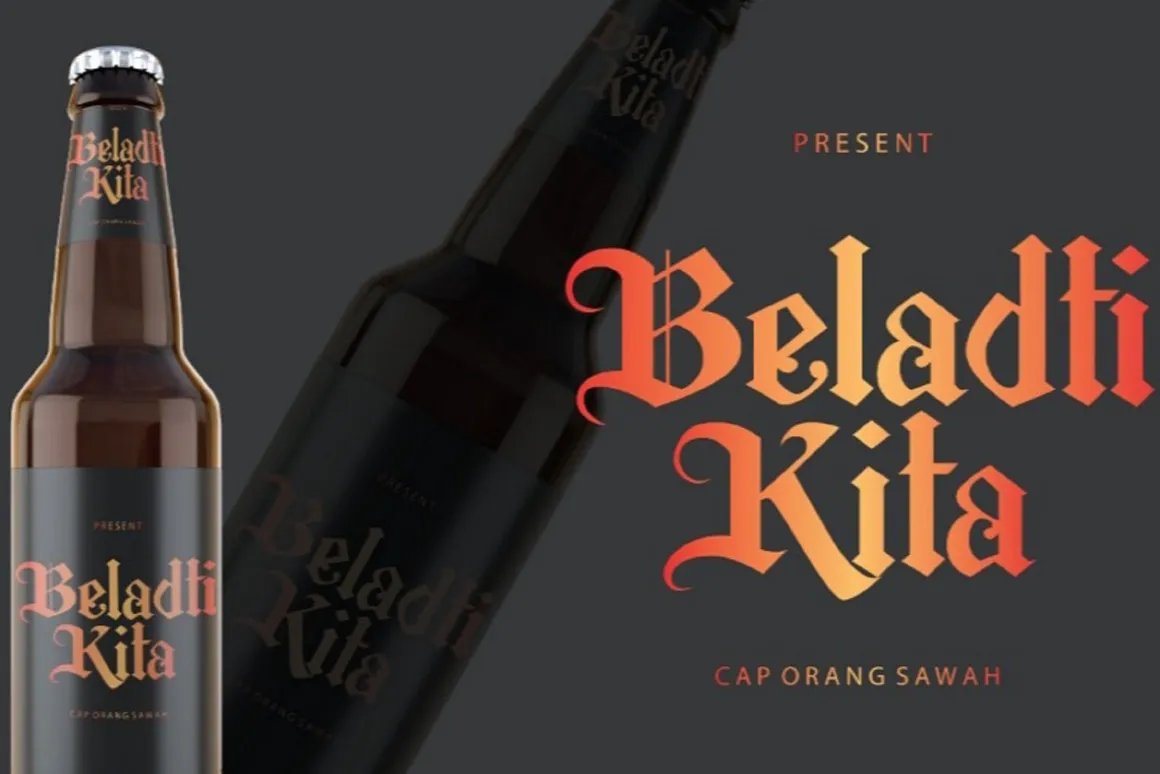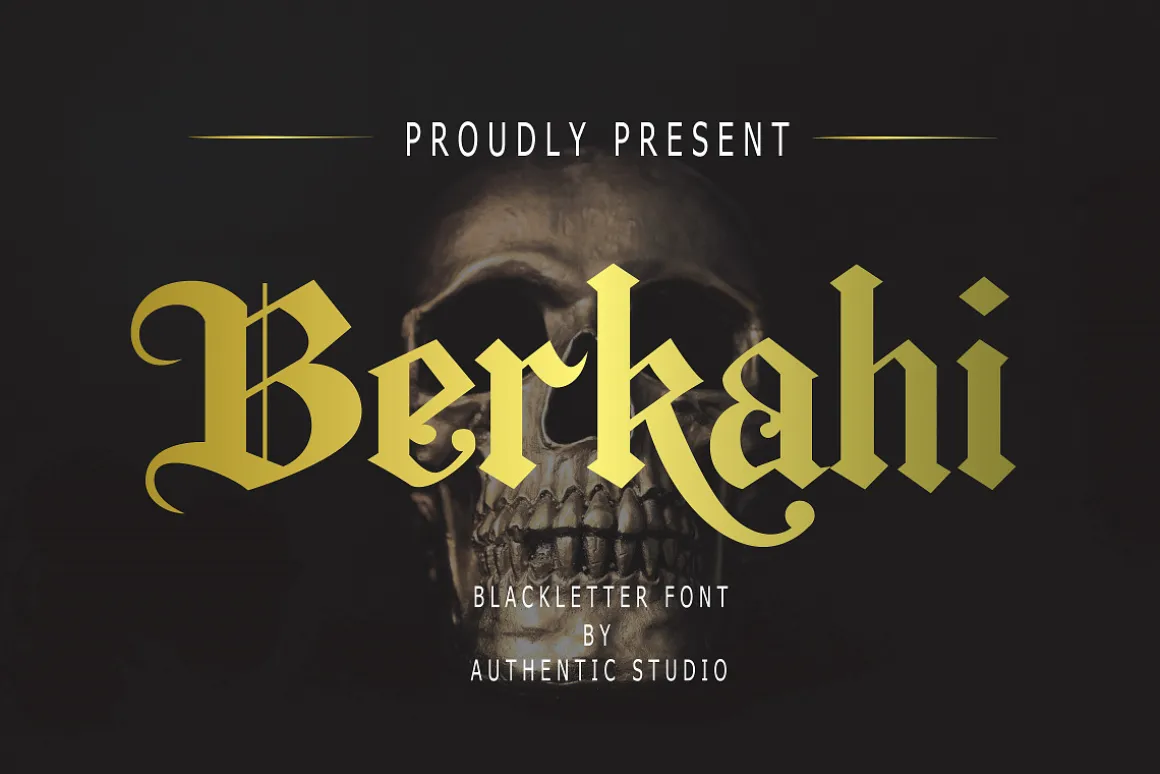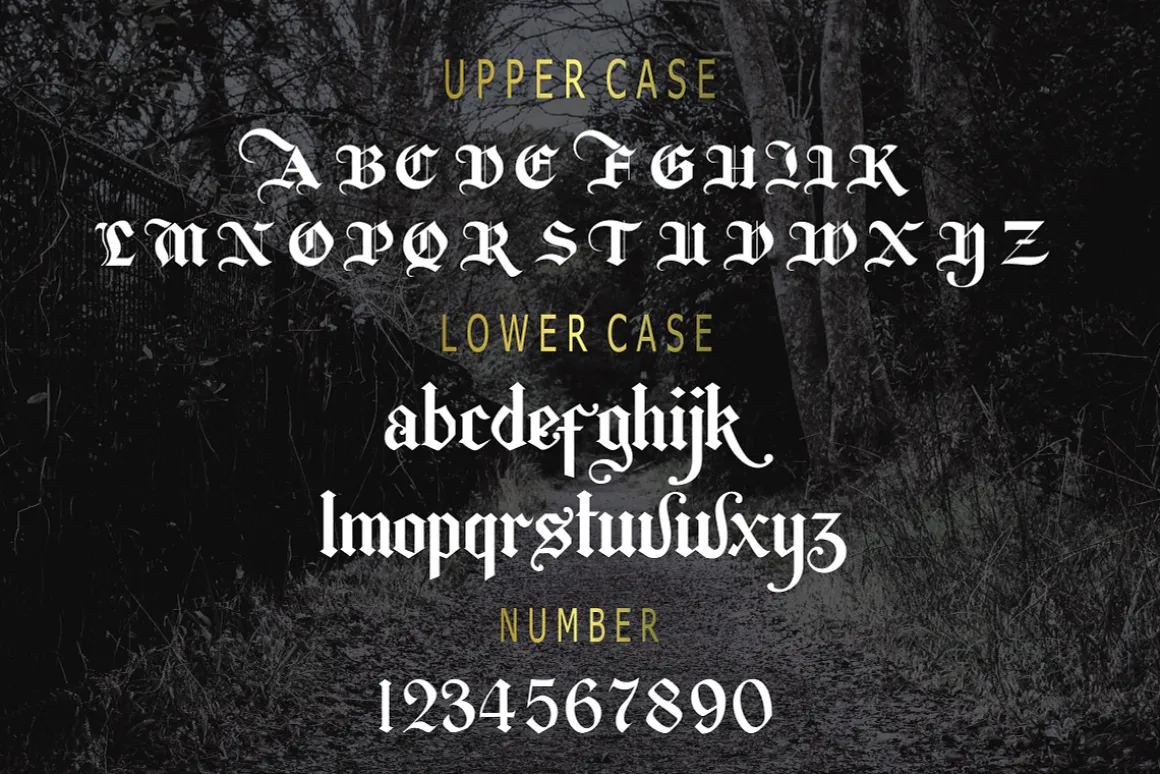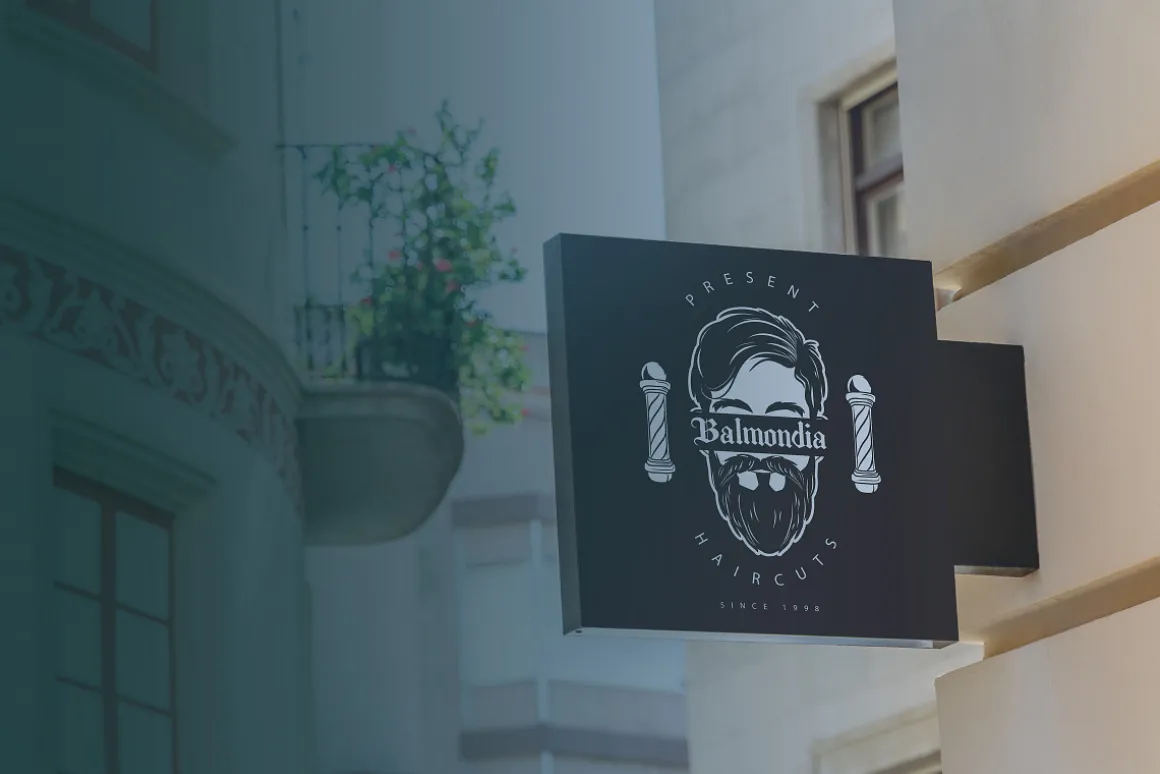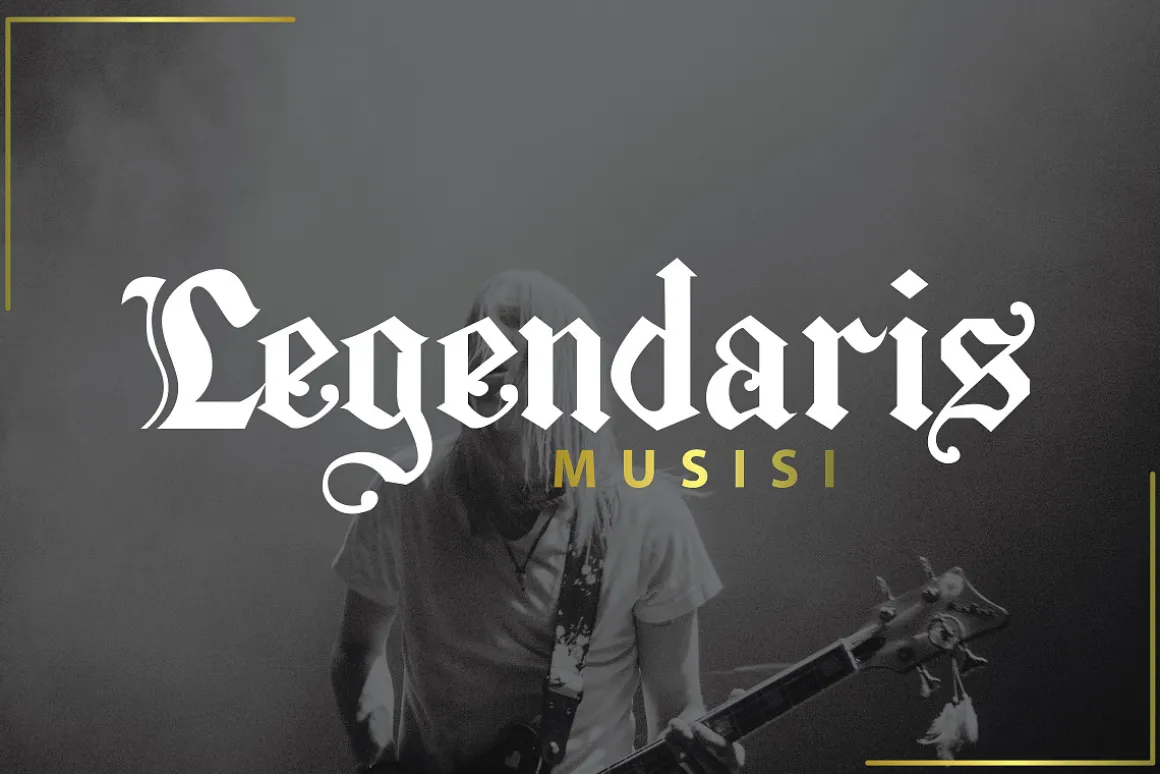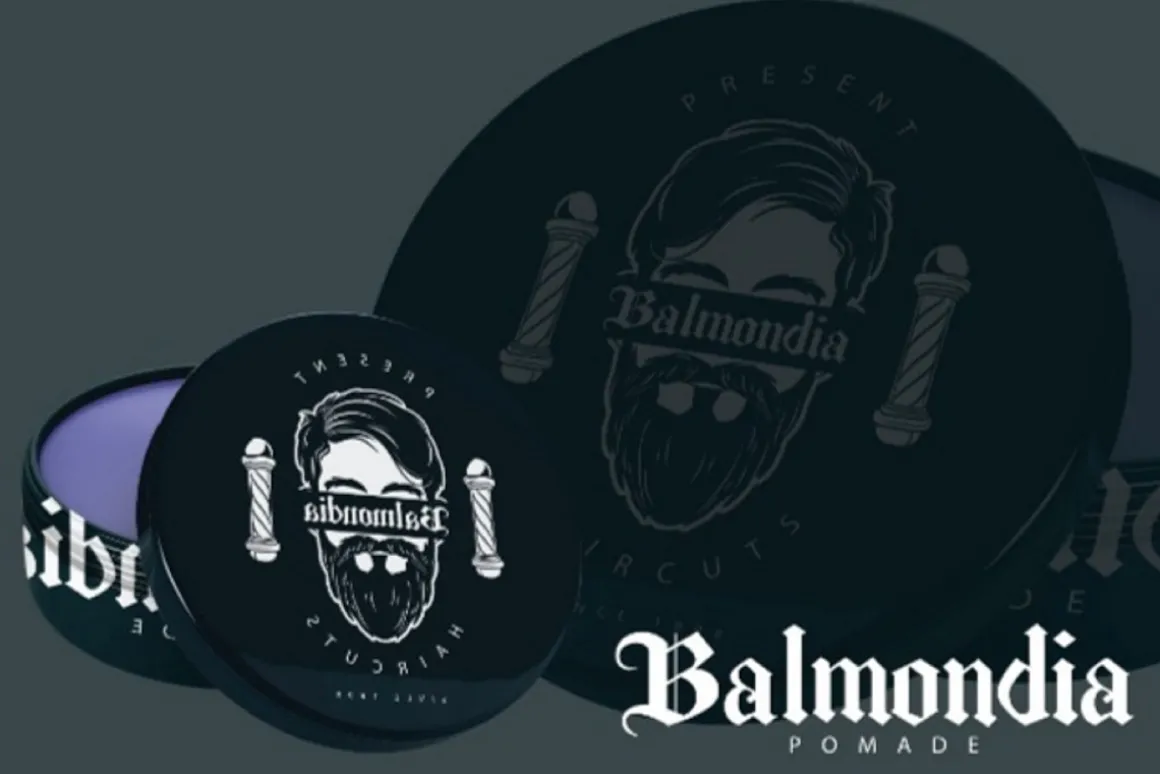
Introducing Berkahi Blackletter Font,unique gothic blackletter for your design.perfect for tattoos clothing, labels and packaging, branding, or any Gothic-themed projects! i hope you enjoyedInclude :OtfTtf